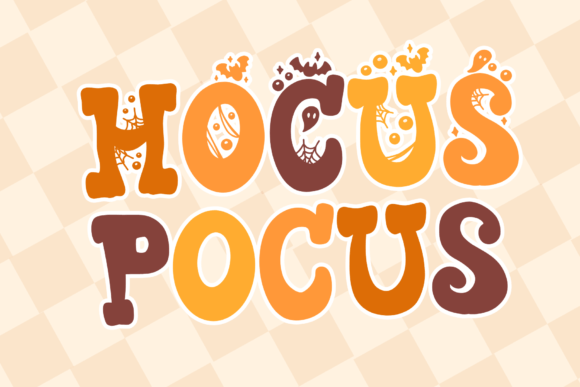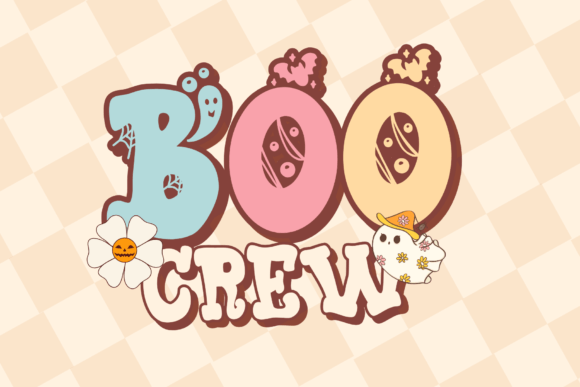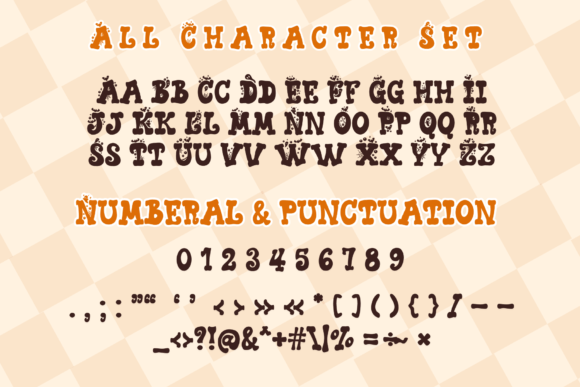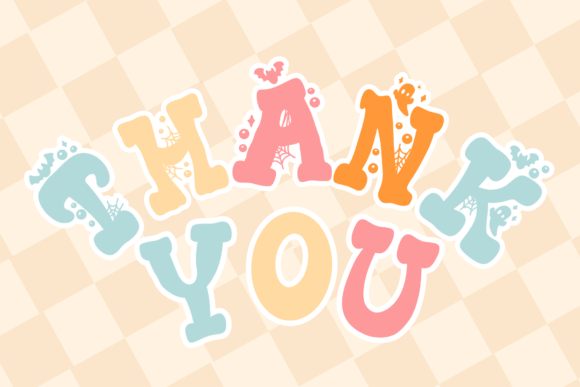
The Ultimate Guide to Crazy Halloween Font: A Retro Decorative Delight
With its playful, retro aesthetic, Crazy Halloween embodies the perfect blend of playfulness and authenticity. In this article, we’ll dive into the world of Crazy Halloween font, exploring its features, how to use it, and what makes it so special.
- ✨ Unique, retro Halloween vibe that’s perfect for seasonal projects
- ✅ Highly versatile and can be used for a wide range of designs, from blog posts to logos and branding
- 🎉 Easy to read and understand, even in smaller font sizes
- 🔥 Great for creating eye-catching titles, headings, and emphasis text
While Crazy Halloween font is an amazing addition to any design project, there are a few things to keep in mind:
- 🤔 Limited character set: While the font has a great selection of characters, it may not have every single symbol or glyph you need.
- ⚠️ May not be suitable for body text: Due to its decorative nature, Crazy Halloween font is best used for titles, headings, and emphasis text, rather than large blocks of body text.
Crazy Halloween font was inspired by the retro aesthetic of classic Halloween decorations and signage. The designer wanted to create a font that captured the playful, spooky spirit of the holiday, while also being easy to read and versatile. The result is a font that’s perfect for designers, crafters, and creative hobbyists looking to add a touch of Halloween magic to their projects.
Q: What type of projects is Crazy Halloween font best suited for?
A: Crazy Halloween font is perfect for a wide range of projects, from blog posts and social media graphics to logos, branding, and invitations.
Q: Does Crazy Halloween font come with a character set?
A: Yes! Crazy Halloween font comes with a standard character set, including letters, numbers, and punctuation. However, it may not have every single symbol or glyph you need.